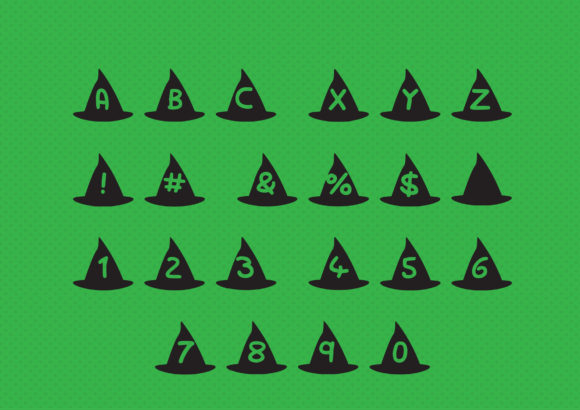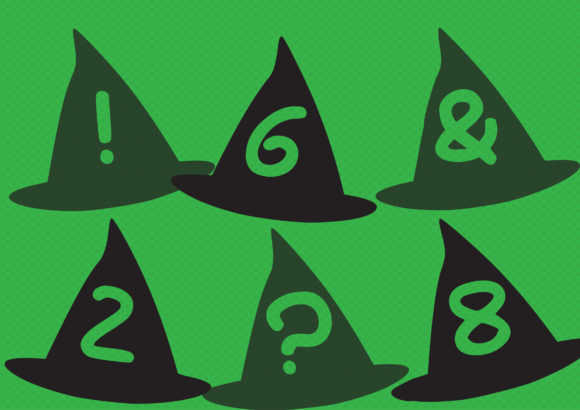
Introduction to Play Witches Hat Font
Do you remember that moment when you’re browsing through design resources and stumble upon the perfect font that screams ‘creativity’? For me, it was when I discovered the Play Witches Hat Font. I was working on a spooky Halloween project, and I knew I needed something that would give it that extra oomph. As I browsed through the free download section, I finally found it – a cool and spooky decorative font that perfectly fit my needs.
Whether you’re a seasoned designer or a beginner, the Play Witches Hat Font is a valuable design resource that can elevate your creative project to the next level. With its high-quality design and transparent background, it’s perfect for adding a spectacular look to your horror movie posters, t-shirts, or any other Halloween-themed crafts.
Key Features of Play Witches Hat Font
- Unique, hand-drawn design with a whimsical touch, perfect for creative projects and children’s content.
- Includes 12 fonts with various styles and weights, making it a versatile design resource for any project.
- High-quality fonts with transparent background, allowing for easy layering and customization.
Honest Review: Play Witches Hat Font
As a designer, I’m always on the lookout for unique and creative design resources. Recently, I stumbled upon the Play Witches Hat Font, and I was intrigued by its quirky charm. I decided to give it a try and share my honest review with you.
- ✨ High-quality design: The font is well-designed, with clean lines and a consistent aesthetic.
- ✨ Versatility: Play Witches Hat Font is suitable for a wide range of creative projects, from digital art to print materials.
- ⚠️ Limited font sizes: The font is only available in a limited range of sizes, which may not be suitable for all design projects.
- ⚠️ Limited language support: The font may not be compatible with all languages, which could be a limitation for designers working on international projects.
Overall, I’m impressed with the Play Witches Hat Font. Its unique design and versatility make it a great addition to any designer’s toolkit. While it has some limitations, it’s still a high-quality design resource that’s definitely worth checking out.
Tips for Getting the Most Out of Play Witches Hat Font
Some tips for getting the most out of the Play Witches Hat Font include using it in combination with other fonts to create a unique look, experimenting with different font sizes and styles, and using the font in creative ways such as in title graphics or headings.
The Play Witches Hat Font is commonly used in a variety of creative projects including title graphics, headings, and other design elements. It is also a great font to use in projects that require a high level of customization and creativity.